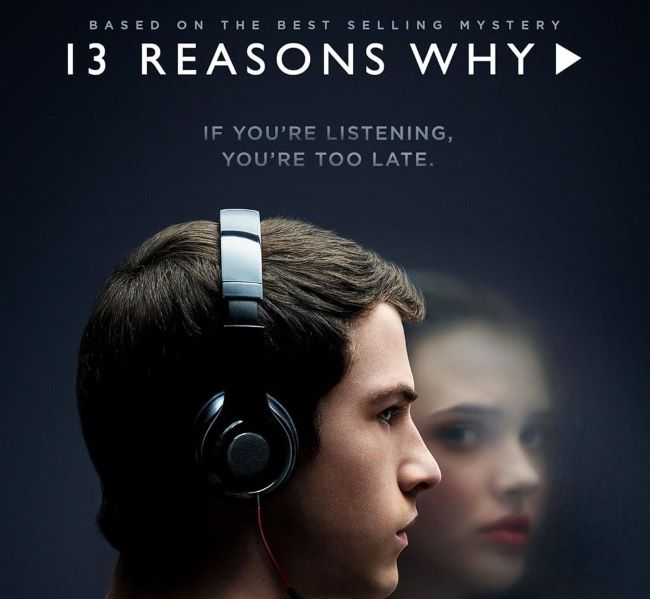
The 13 Reasons Why font is simple, clean, and quietly intense—much like the atmosphere of the series itself. The logo for 13 Reasons Why uses Helvetica Neue, a modern sans-serif typeface known for its clarity and neutrality. Its straightforward design creates a sense of seriousness and realism, fitting for a show that deals with sensitive and emotional themes.
What makes the 13 Reasons Why font (Gill Sans Roman) work so well is its restraint. There are no dramatic flourishes or over-the-top effects—just clear, bold lettering that lets the weight of the story speak for itself. The minimal style draws attention to the subject matter, setting a somber and thoughtful tone before the first scene even begins.
13 Reasons Why follows the story of Hannah Baker and the impact her life and death have on those around her. Just like the font, the series is direct, unembellished, and unforgettable in its emotional impact.